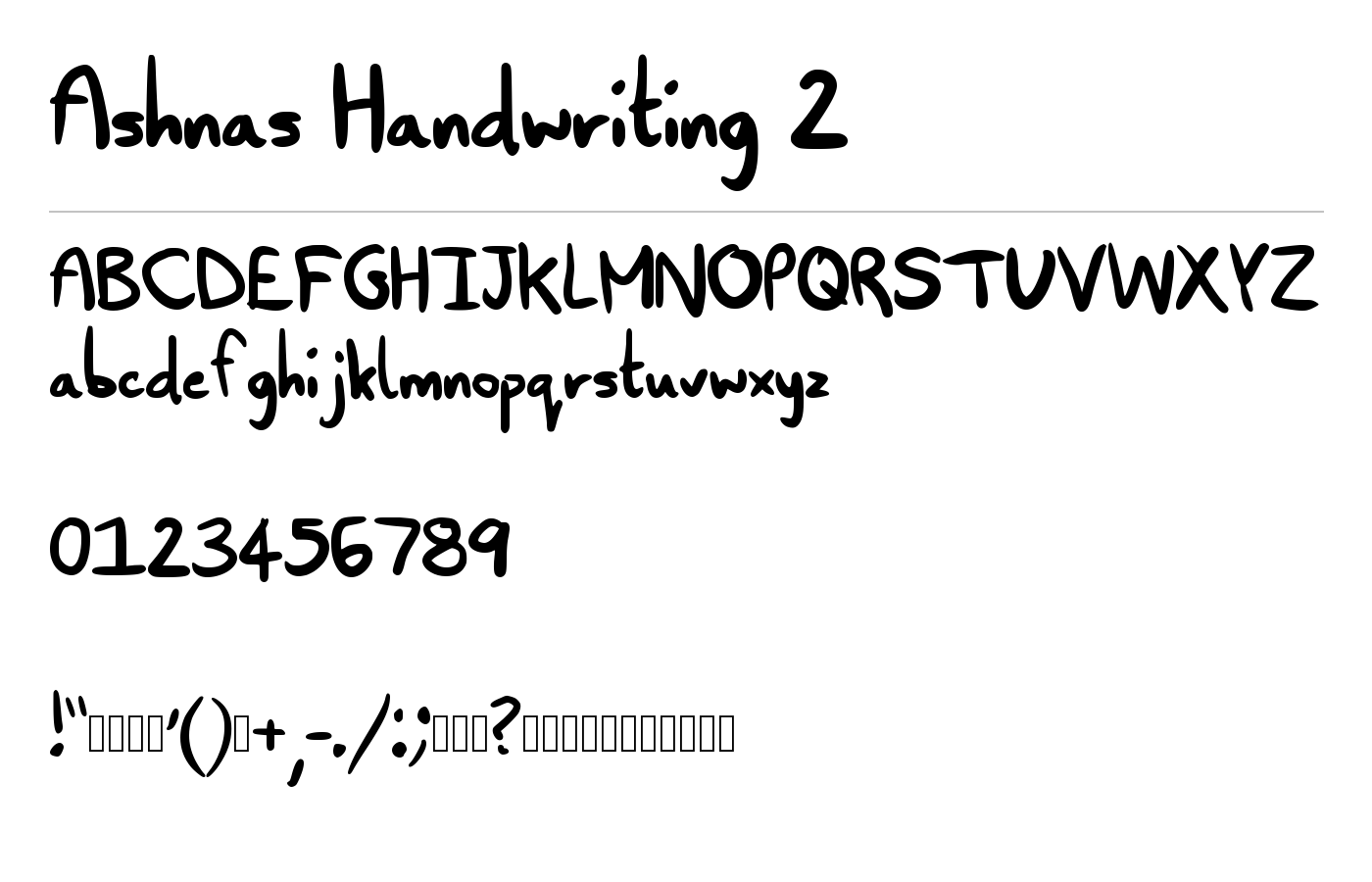
Ashnas Handwriting 2 is a casual handwritten font with a friendly and approachable feel, featuring smooth, rounded strokes and slightly irregular letterforms that mimic natural handwriting. It offers a clean and simple style with moderate contrast and a playful, informal personality, making it well-suited for personal projects, informal branding, social media graphics, and creative headlines where warmth and a human touch are desired. This font works best in contexts that benefit from an inviting, personal vibe rather than formal or corporate tone.
Ashnas Handwriting 2 Font
About Ashnas Handwriting 2 Font